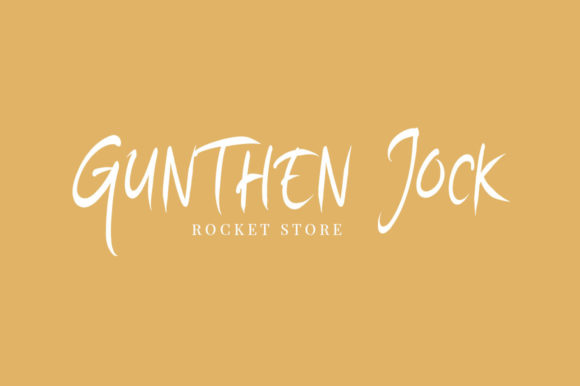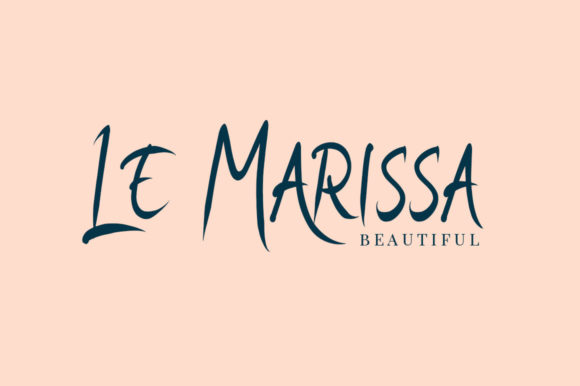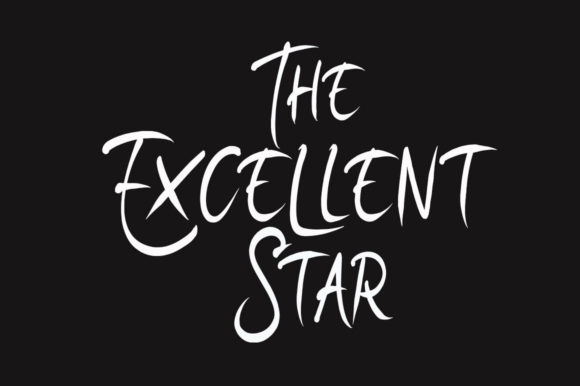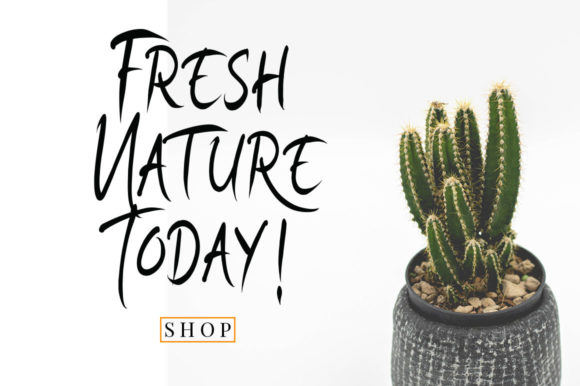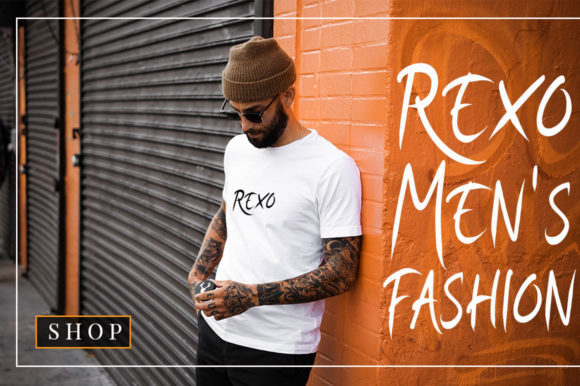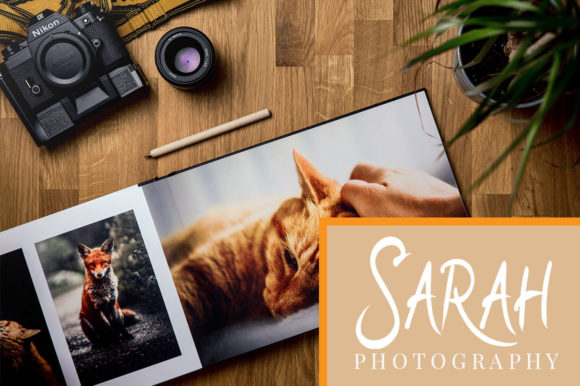
Introducing Convert Light Font: Elevate Your Design with Elegance
In the world of typography, a font can make or break the visual appeal of a design project. For designers and crafters looking to add a touch of sophistication and elegance to their work, the Convert Light Font is an exceptional choice. This beautifully handcrafted font is designed to impress your audience and elevate your branding to new heights.
The Essence of Convert Light Font
Convert Light is more than just a font; it’s a design statement. Its elegant and fancy appearance is crafted to make your projects stand out, adding a touch of luxury and refinement. Whether you’re working on a branding project, a website, or marketing materials, this font can transform your design into a masterpiece. The versatility of Convert Light allows it to be used across various platforms and applications, making it a valuable addition to any designer’s toolkit.
Key Features of Convert Light Font
- Elegant and Fancy Design: Convert Light boasts a sophisticated and refined aesthetic, perfect for projects that demand a high level of elegance.
- Handcrafted with Precision: The font is meticulously crafted to ensure that every letter and glyph meets the highest standards of design.
- PUA Encoded for Easy Access: Being PUA (Private Use Area) encoded, Convert Light allows you to access all the amazing glyphs and ligatures easily, enhancing your design capabilities.
- Versatile and Compatible: This font can be used across a wide range of applications, from digital platforms to print materials, ensuring consistency in your branding.
Unlocking Creative Potential with PUA Encoding
The PUA encoding of Convert Light Font is a significant advantage for designers. PUA encoding allows for the use of special characters and glyphs that are not available in standard font encodings. This means you can access a wide range of additional design elements, such as swashes, ligatures, and alternates, directly from the font. This feature not only saves time but also opens up new creative possibilities, enabling you to customize your designs to perfection.
Applications of Convert Light Font
The applications of Convert Light Font are vast and varied. Here are a few examples of how you can use this elegant font:
- Branding and Logos: Create memorable and impactful logos and branding materials that reflect your brand’s elegance and sophistication.
- Web Design: Enhance your website’s typography, making it more engaging and visually appealing to your visitors.
- Marketing and Advertising: Use Convert Light in your marketing materials, such as brochures, flyers, and posters, to add a touch of class and professionalism.
- Stationery and Packaging: Elevate your stationery and packaging designs with a font that exudes elegance and refinement.
Tips for Using Convert Light Font Effectively
To get the most out of Convert Light Font, consider the following tips:
- Pair it Wisely: Combine Convert Light with complementary fonts to create visual interest and hierarchy in your designs.
- Experiment with Sizes: Play with different font sizes to emphasize certain elements and create a dynamic design.
- Utilize Ligatures and Glyphs: Take advantage of the PUA encoding to access and incorporate ligatures and glyphs, adding uniqueness to your designs.
Convert Light Font is a remarkable addition to any designer’s collection. Its elegant design, handcrafted precision, and PUA encoding make it a versatile and powerful tool for creating stunning designs. Whether you’re looking to enhance your branding, web design, or marketing materials, Convert Light is sure to make your projects shine. Embrace the elegance and sophistication that Convert Light offers and take your designs to new heights.